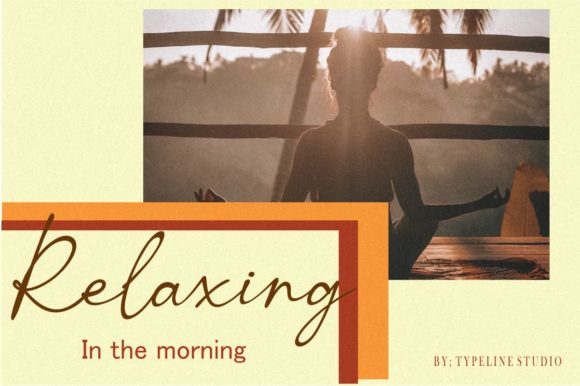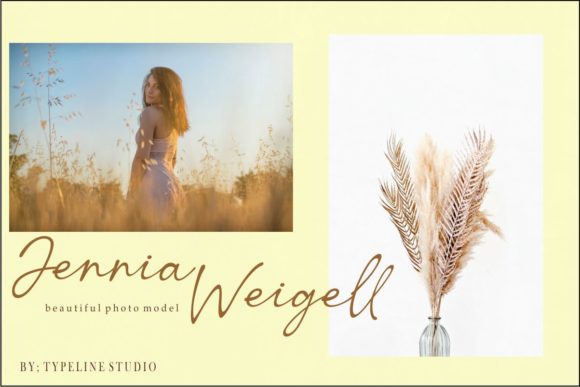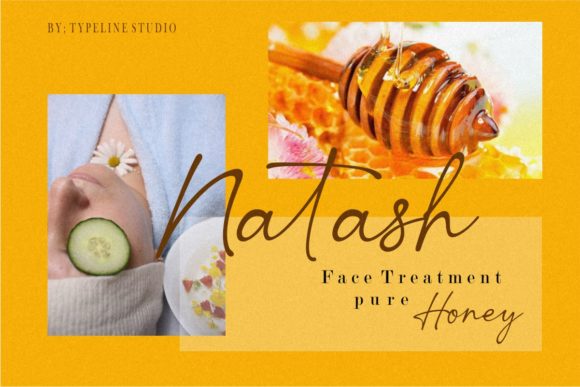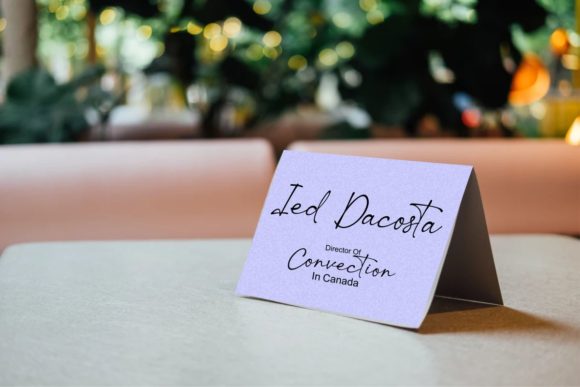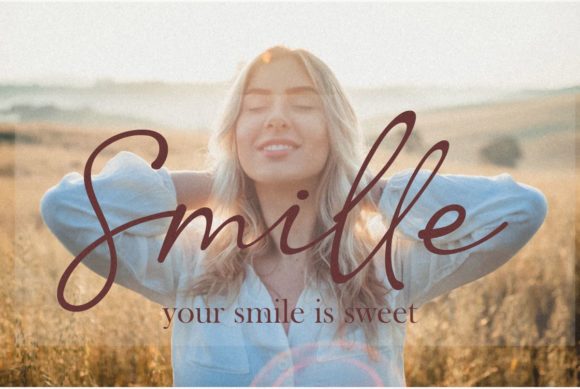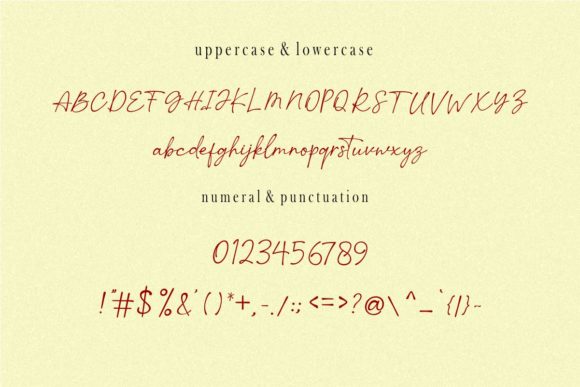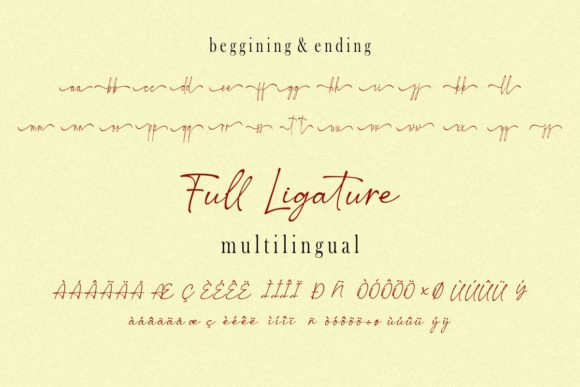
Sucillia Font
About Sucillia Font
Sucillia is a radiant and cursive script font that exudes elegance and sophistication. With its refined and delicate style, this font adds a touch of beauty to any design project. Whether you’re working on branding materials, logos, invitations, or any other creative endeavor, Sucillia will make your designs truly gorgeous.
The flowing and graceful letterforms of Sucillia capture the essence of hand-lettered beauty. Each character is meticulously crafted with sweeping strokes and gentle curves, creating a sense of fluidity and elegance. The unique style of Sucillia brings a radiant and captivating charm to your designs, making them stand out and leave a lasting impression.
One of the standout features of Sucillia is its versatility. It adapts well to various design styles and themes, making it suitable for both formal and informal projects. Whether you’re aiming for a romantic and whimsical look or a more modern and sophisticated aesthetic, Sucillia effortlessly complements your vision, adding a touch of elegance and refinement.
The PUA encoding of Sucillia ensures easy access to all the glyphs and swashes, allowing you to unleash your creativity and customize your designs. Whether you want to embellish your text with decorative swashes, alternate letterforms, or ligatures, Sucillia provides a wide range of options to enhance the beauty and uniqueness of your designs. This versatility allows you to create personalized and stunning visuals with ease.
Despite its delicate appearance, Sucillia maintains excellent legibility. The carefully balanced letterforms and appropriate spacing between characters ensure that your message is conveyed effectively, whether it’s used for headlines, body text, or captions. This legibility makes Sucillia not only visually appealing but also functional in delivering your intended message.
Sucillia is particularly well-suited for designs that require a touch of elegance and sophistication. It is perfect for wedding stationery, luxury branding, feminine product packaging, quotes, and more. With Sucillia, you can effortlessly create designs that exude beauty, charm, and a sense of refinement.
In summary, Sucillia is a cursive and radiant script font that adds a touch of elegance and sophistication to your designs. With its delicate letterforms and graceful curves, it brings a sense of beauty and refinement. The PUA encoding allows for easy access to all the glyphs and swashes, providing ample opportunities for customization. Whether you’re working on formal or informal designs, Sucillia will make each of your creations look gorgeous and capture the attention of your audience.